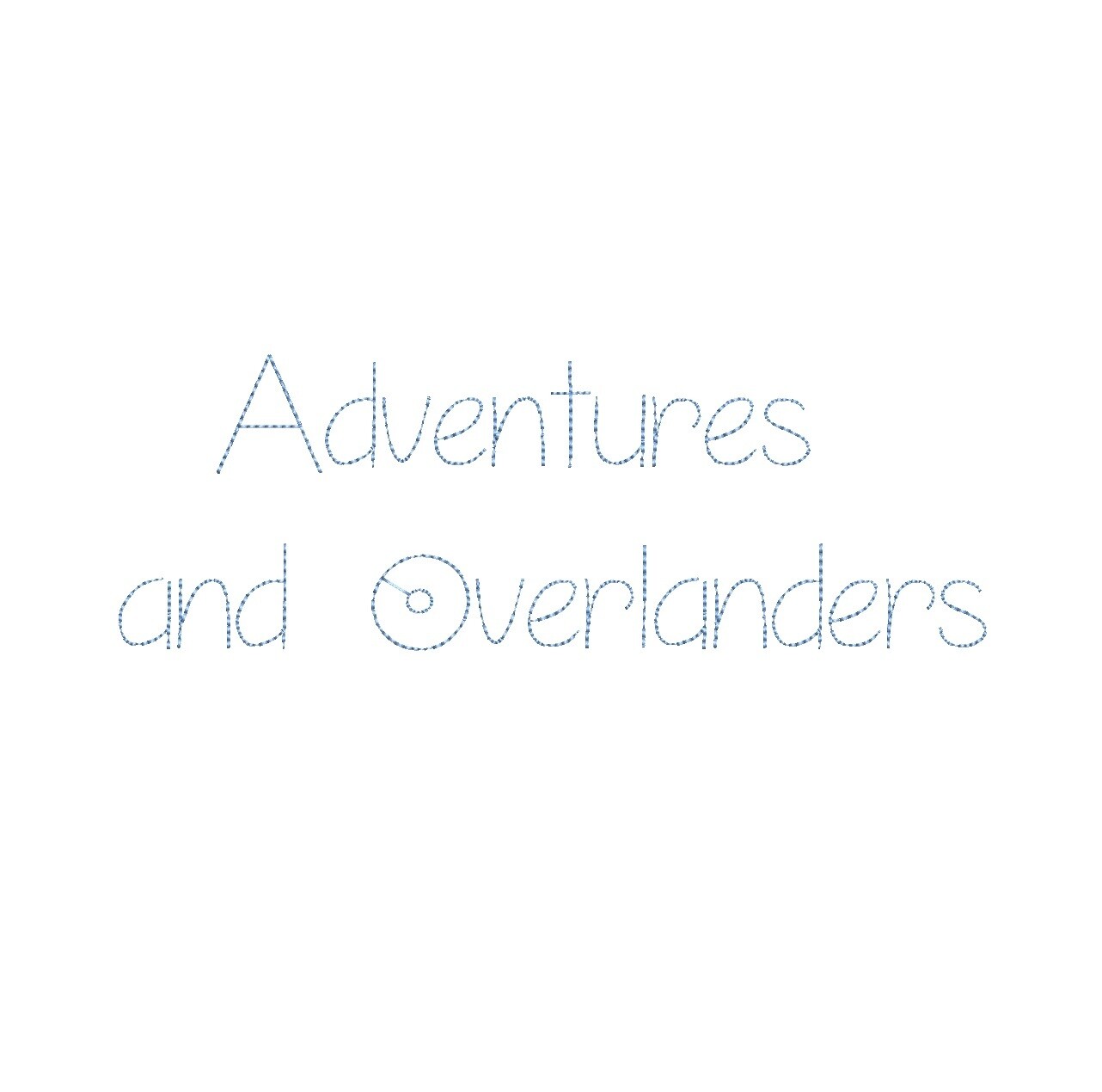
Introducing the Adventures and Overlanders Bean Stitch ESA font - your ultimate digitizing solution compatible with Wilcom Studio e4.5.6 and Hatch 3 versions and up. This font embodies the spirit of exploration and wanderlust, making it ideal for adventurous embroidery projects. Its rugged bean stitch style adds a touch of excitement to outdoor apparel, camping gear, and travel-themed accessories. With seamless curves and impeccable lines, the Adventures and Overlanders ESA font guarantees flawless embroidery results. Impress clients and express your love for exploration effortlessly with this user-friendly font, seamlessly integrating with your preferred software. Embrace the thrill of adventure - get it now!